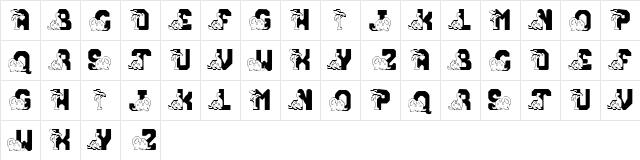
Conradasaur Regular
Design Context for Conradasaur Typeface
Conradasaur is a composed and adaptable typeface that performs quietly and consistently across a wide range of design contexts.